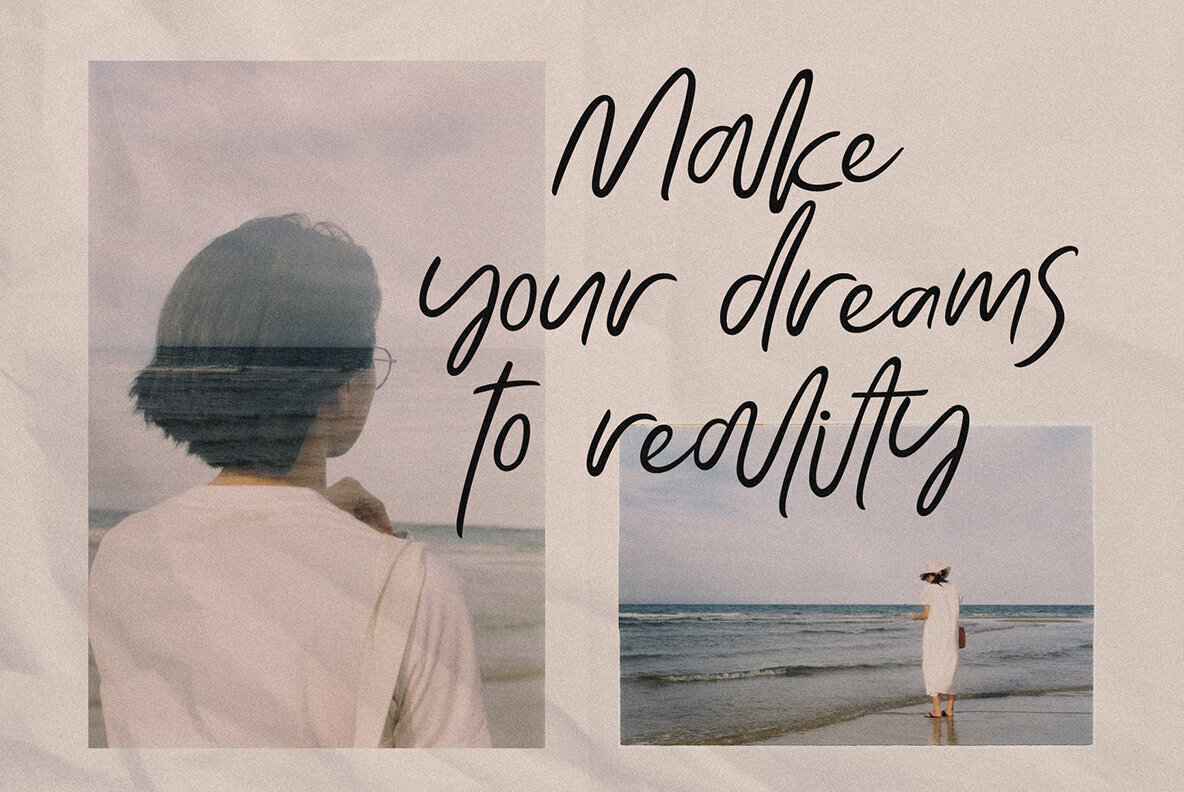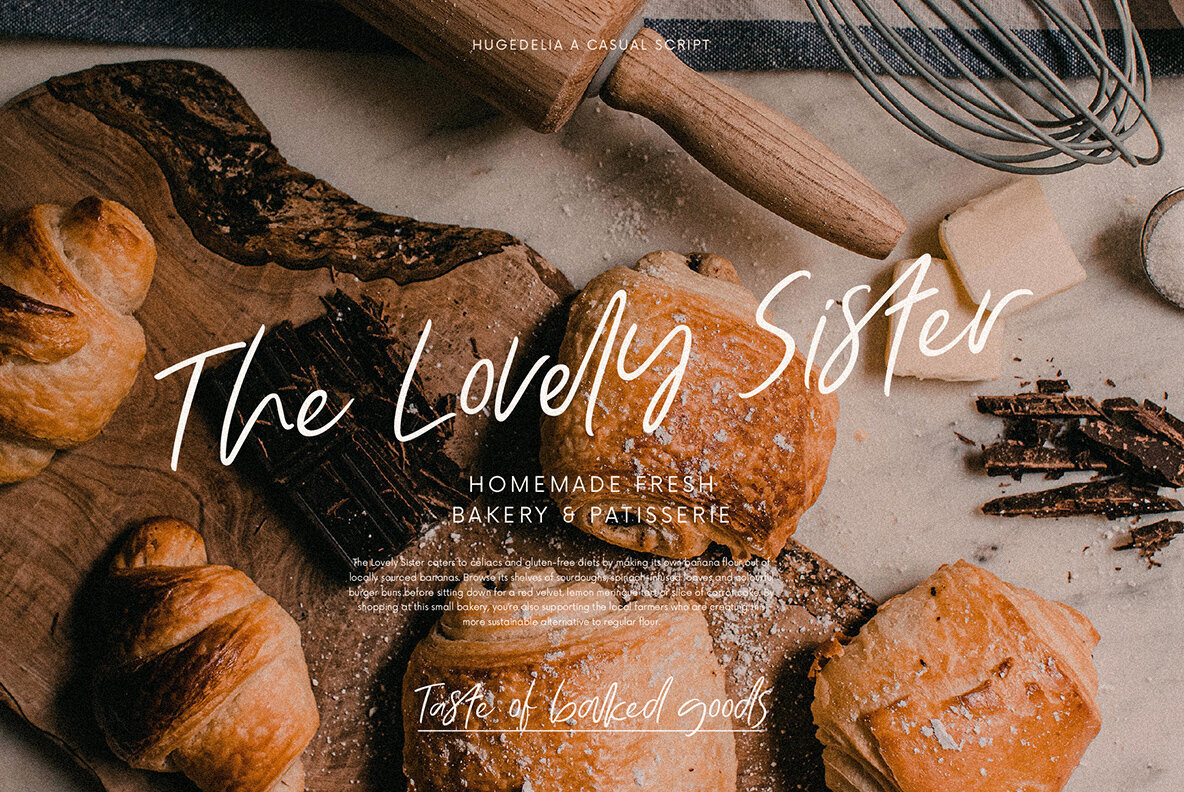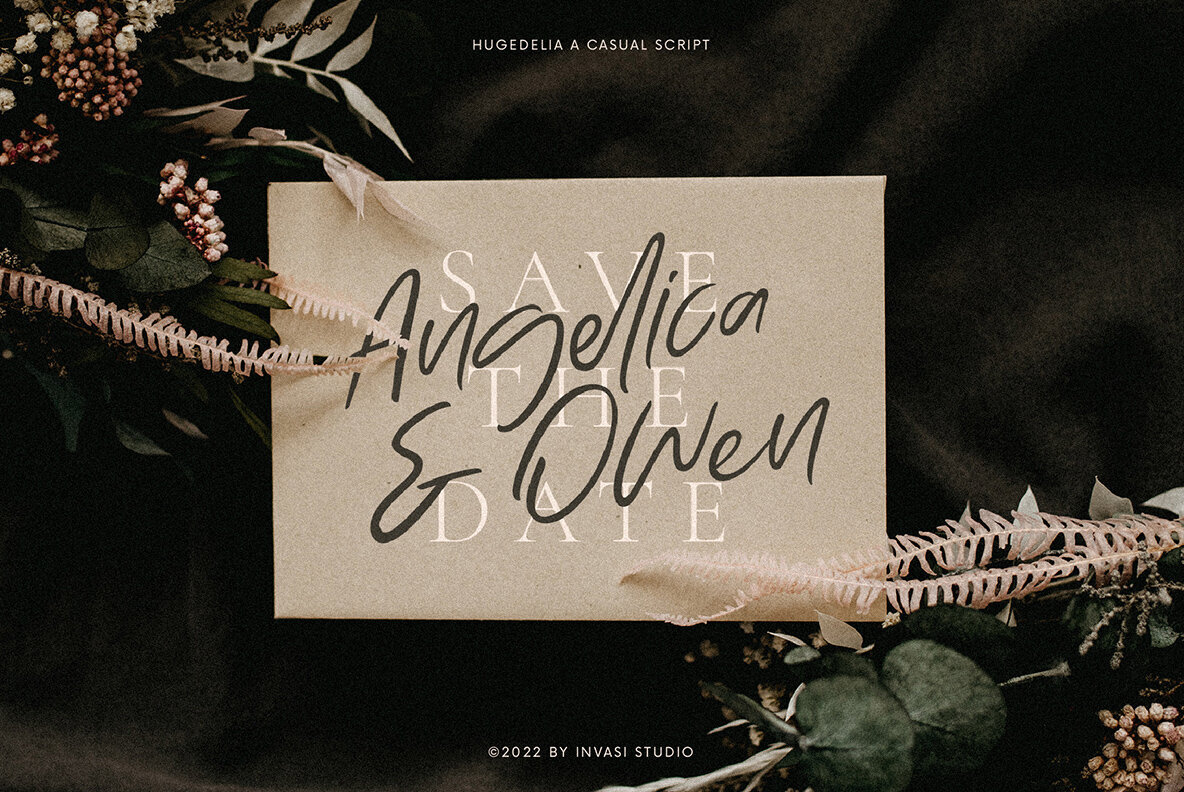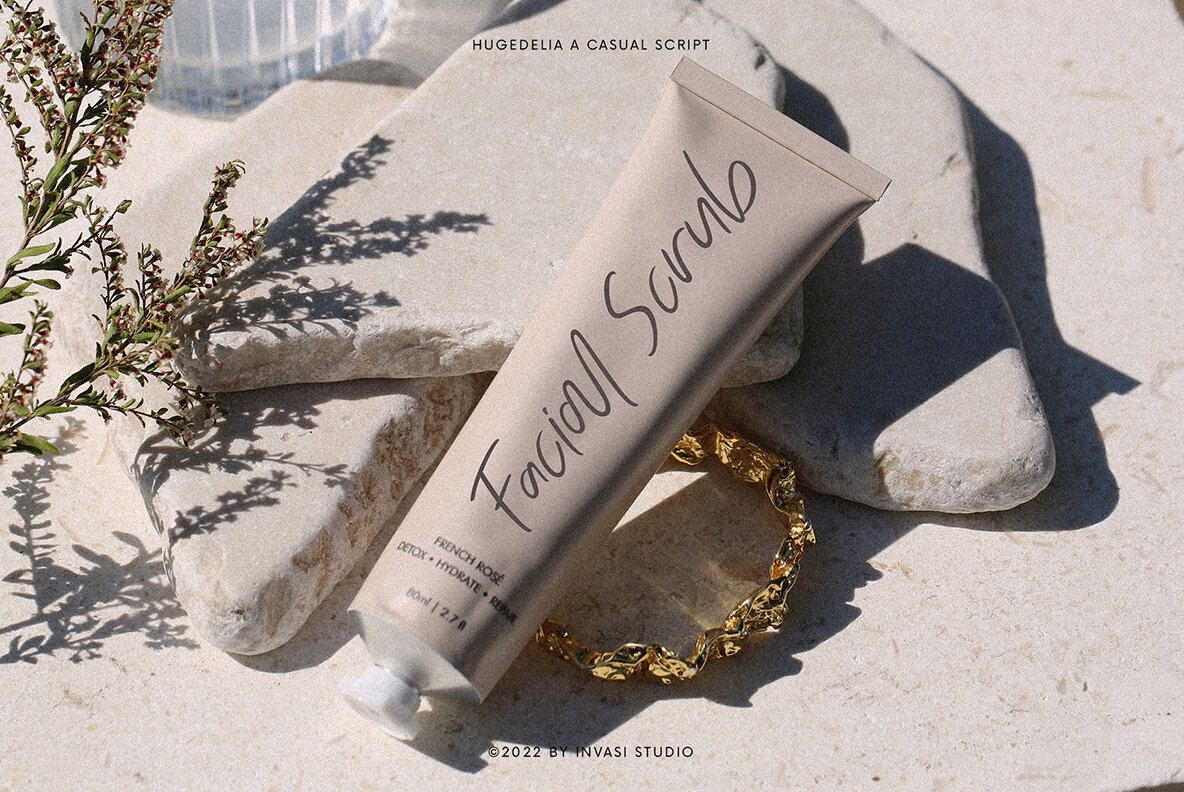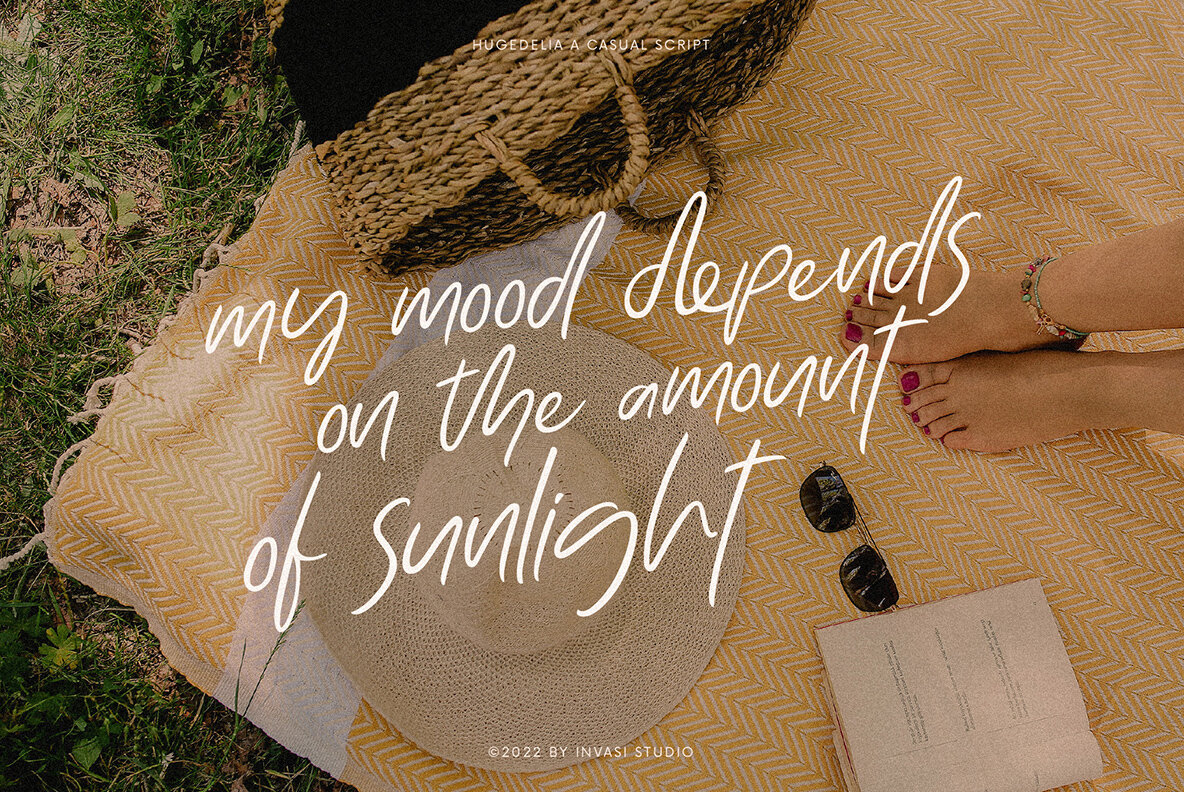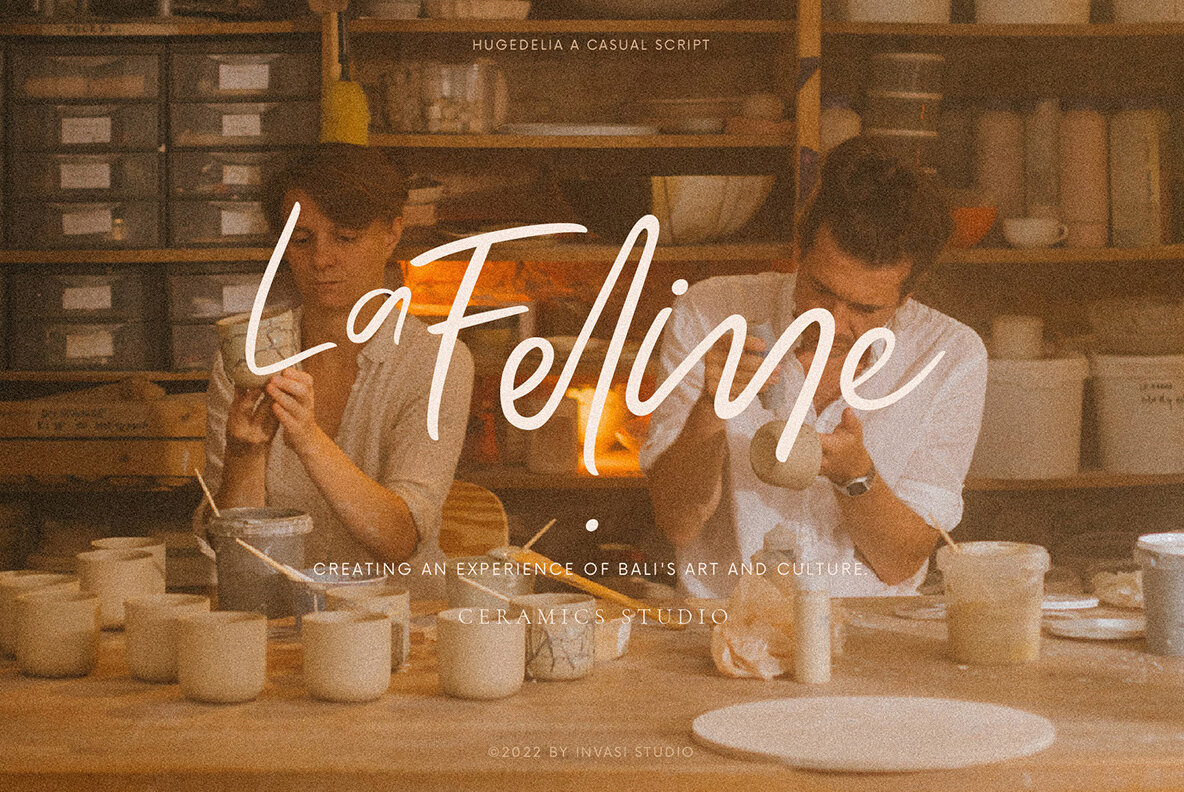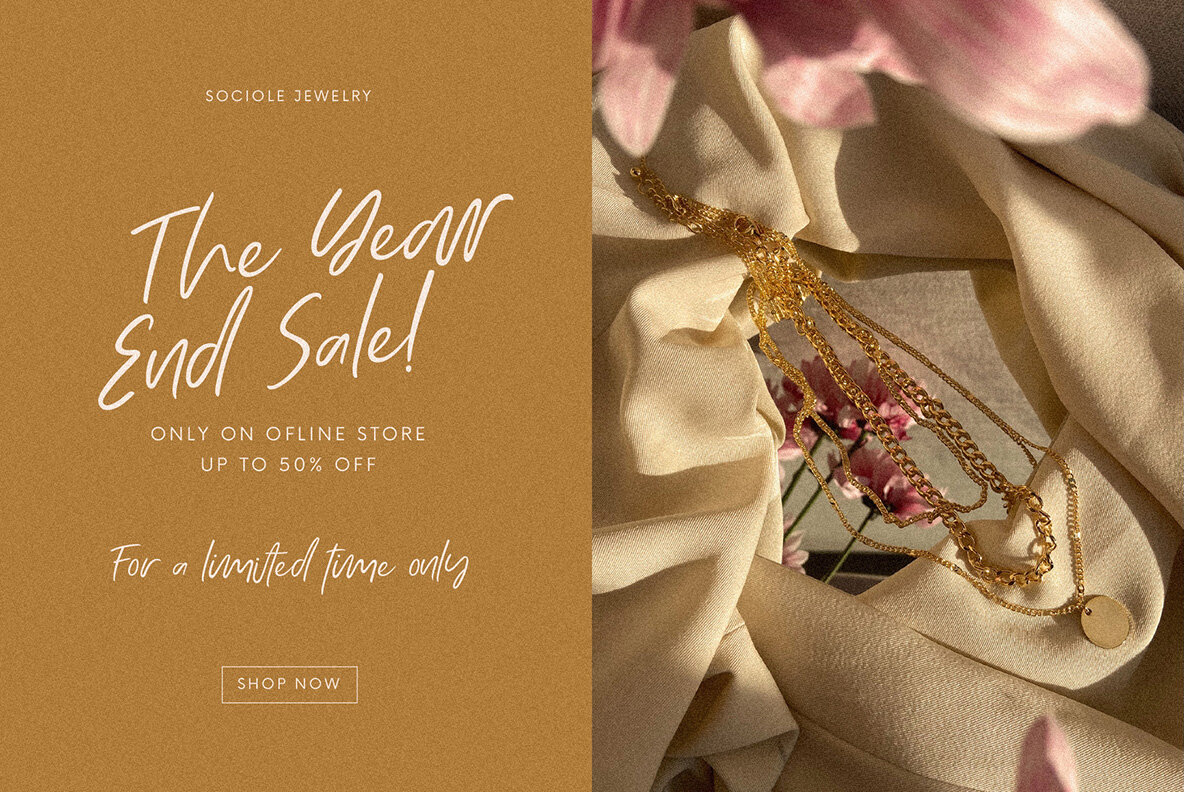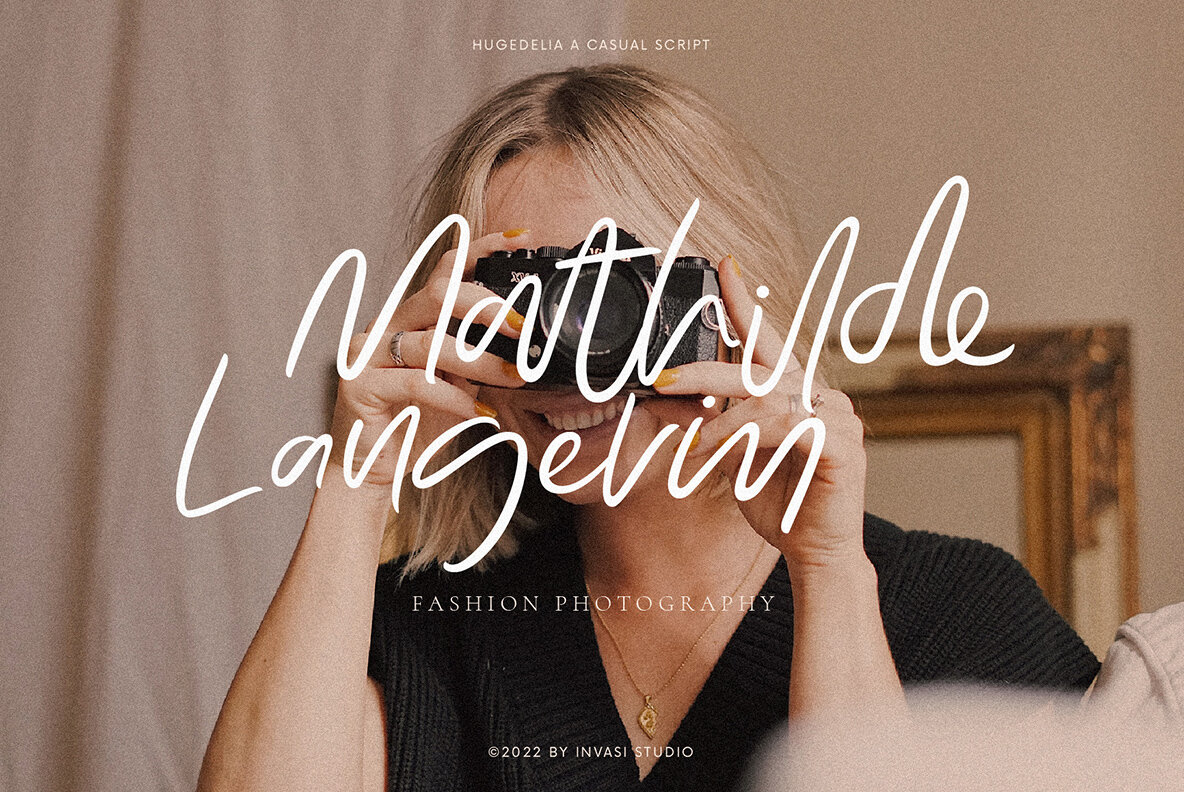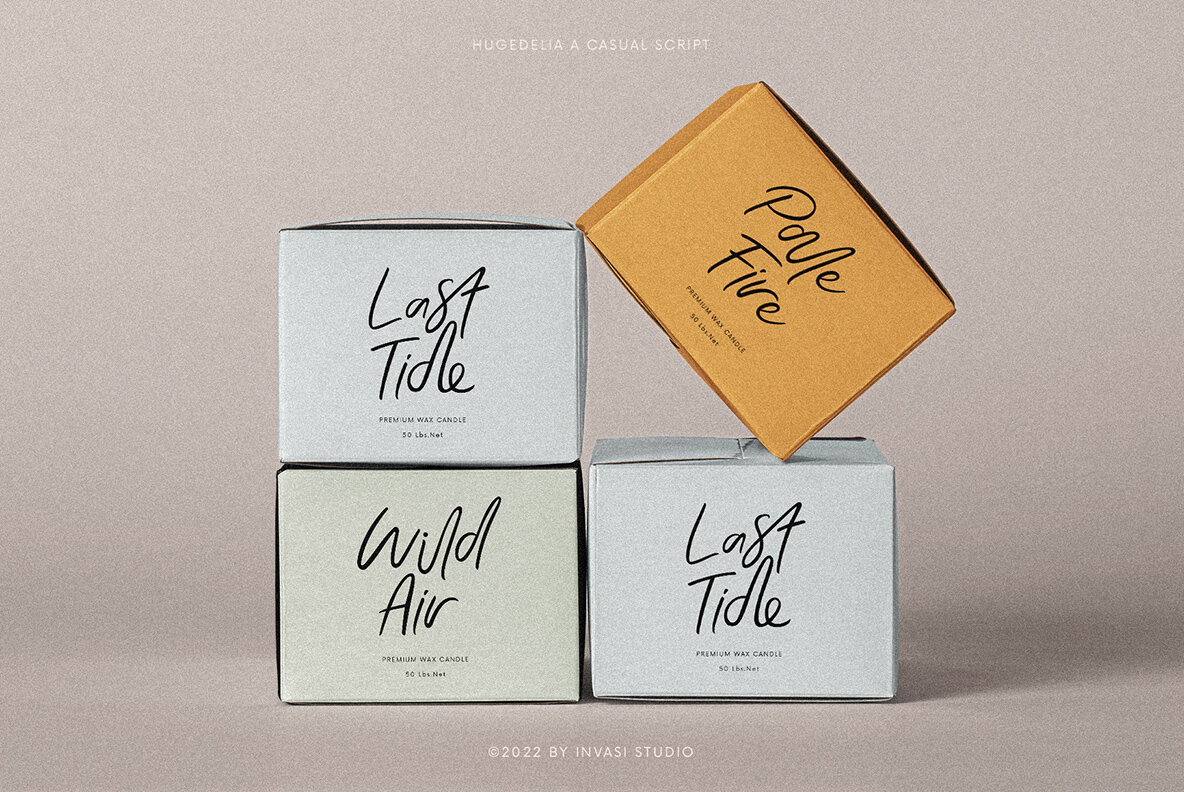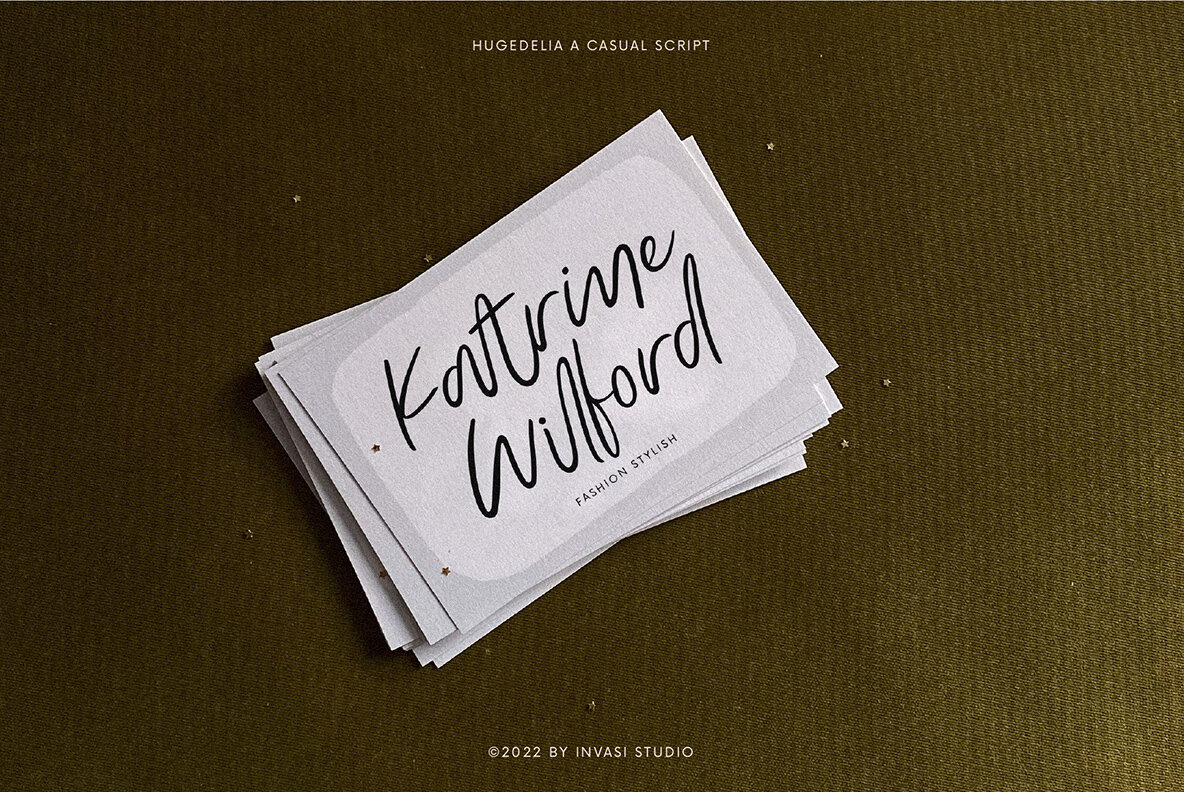
Hugedelia Font
Hugedelia Regular
This modern handwriting font is perfect for your next creative project. With its sophisticated style, this script will give you that elegant look that everyone desires without having to spend an arm and leg! You can use it in any type of design project, from logos to printed quotes or business cards...